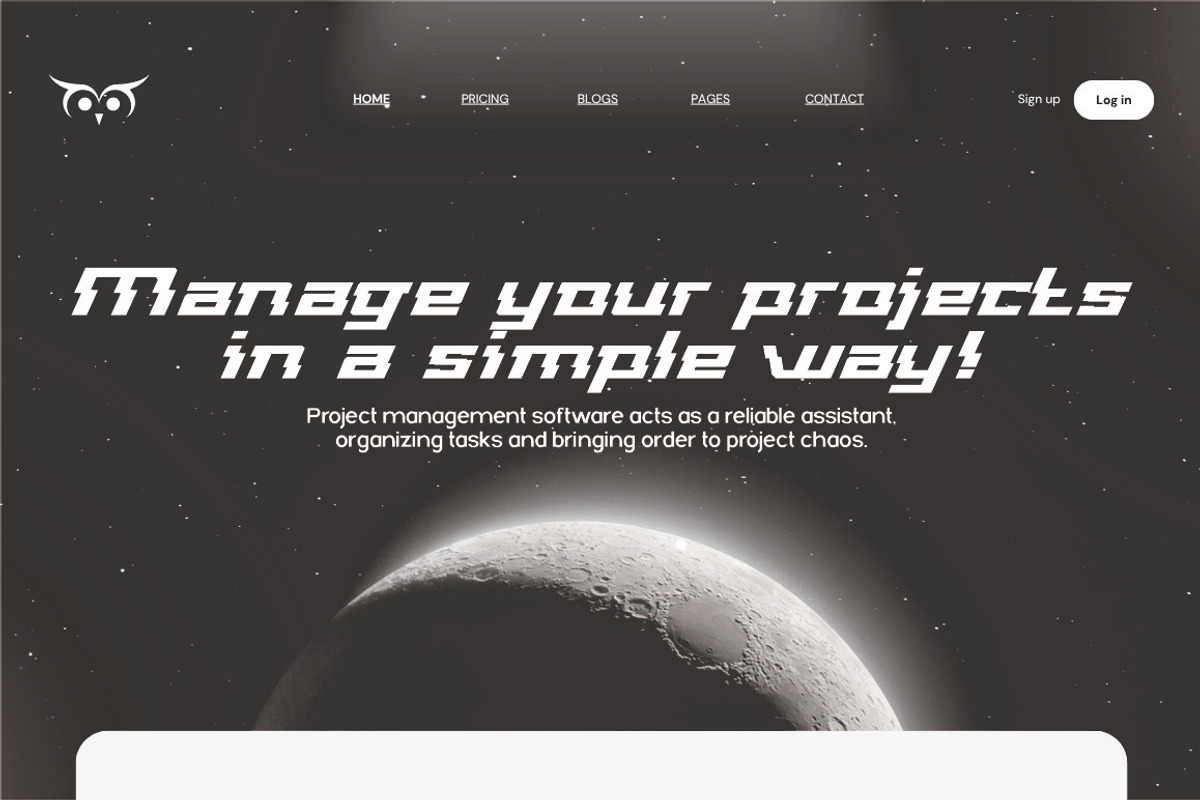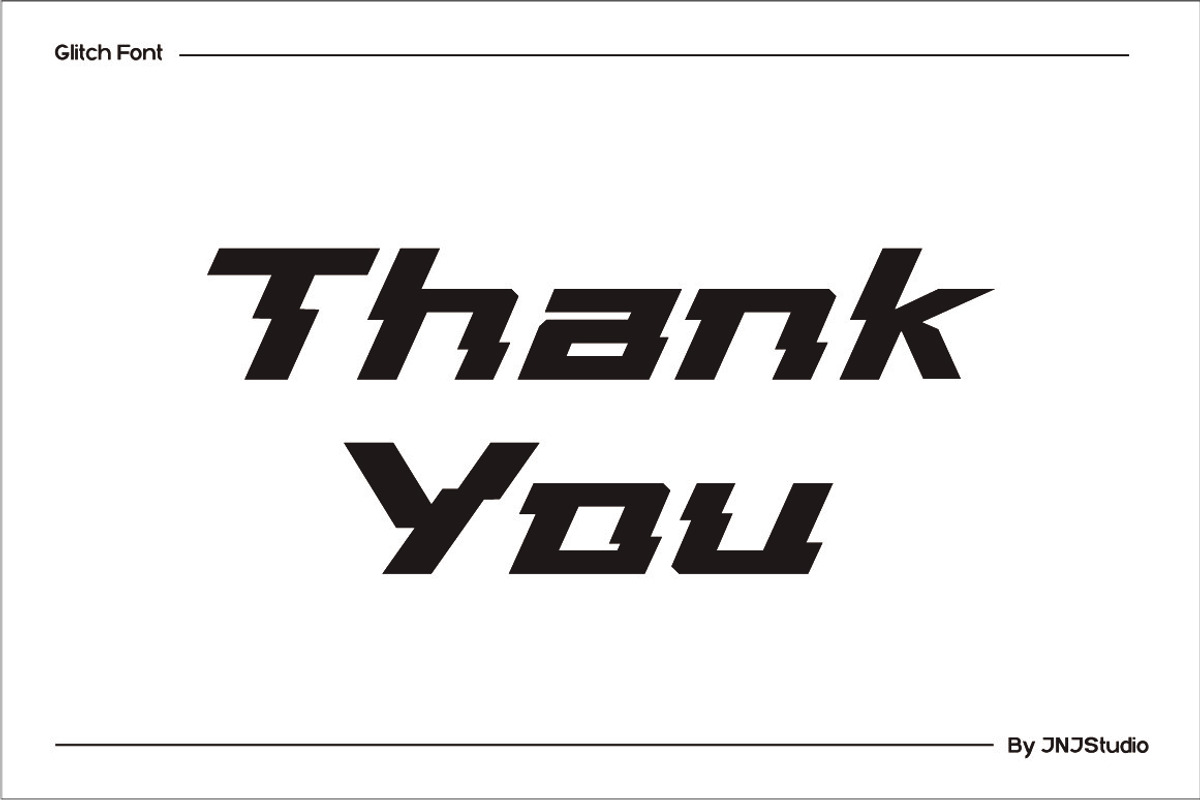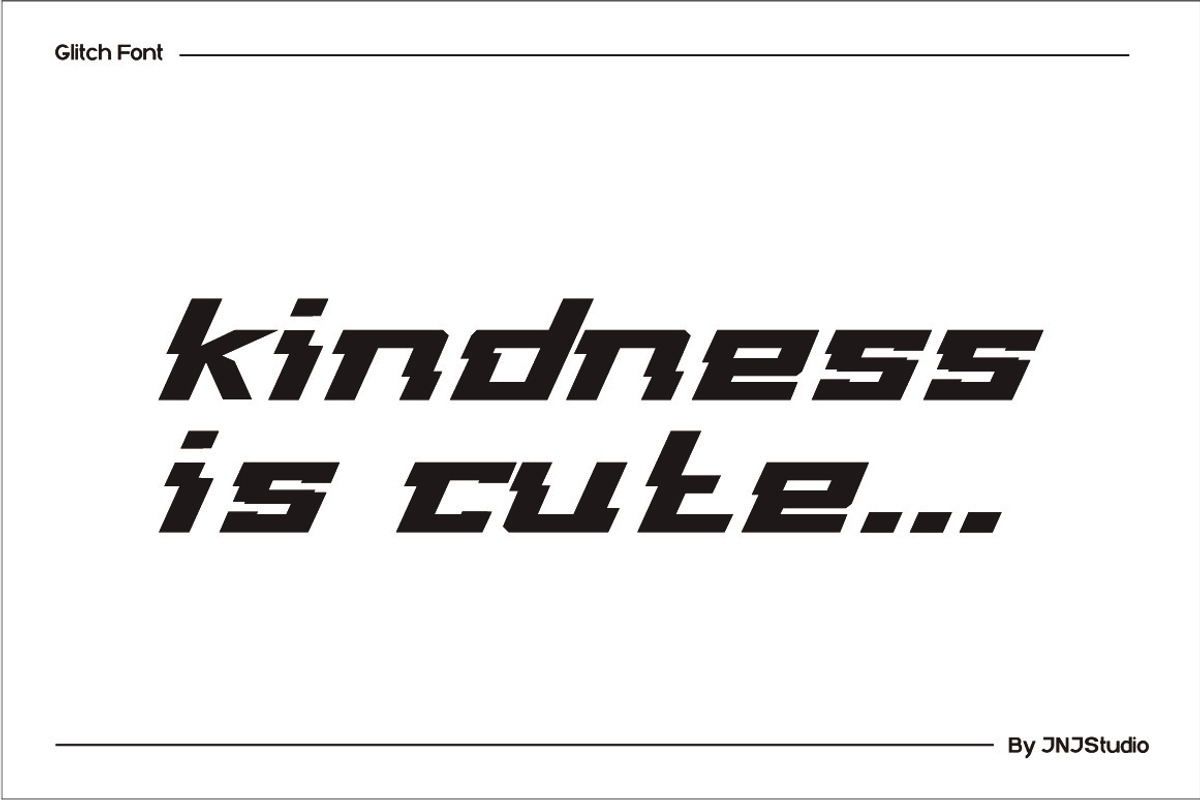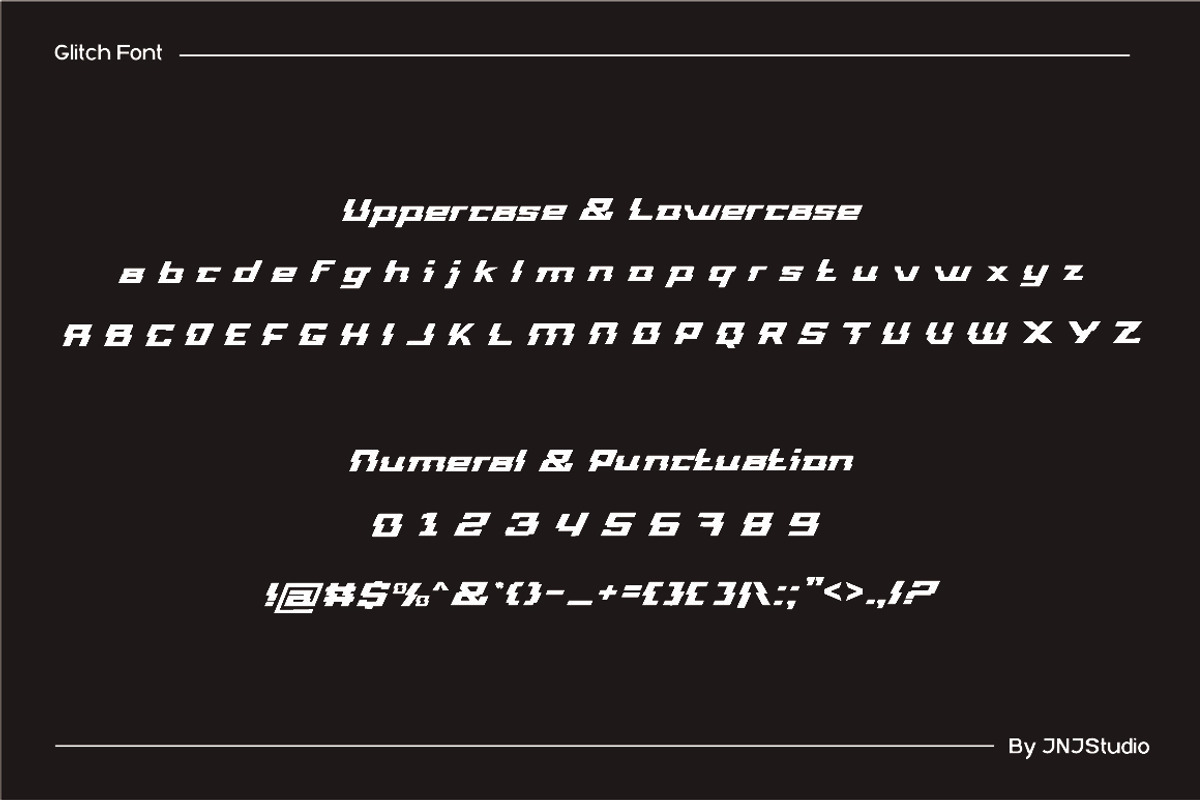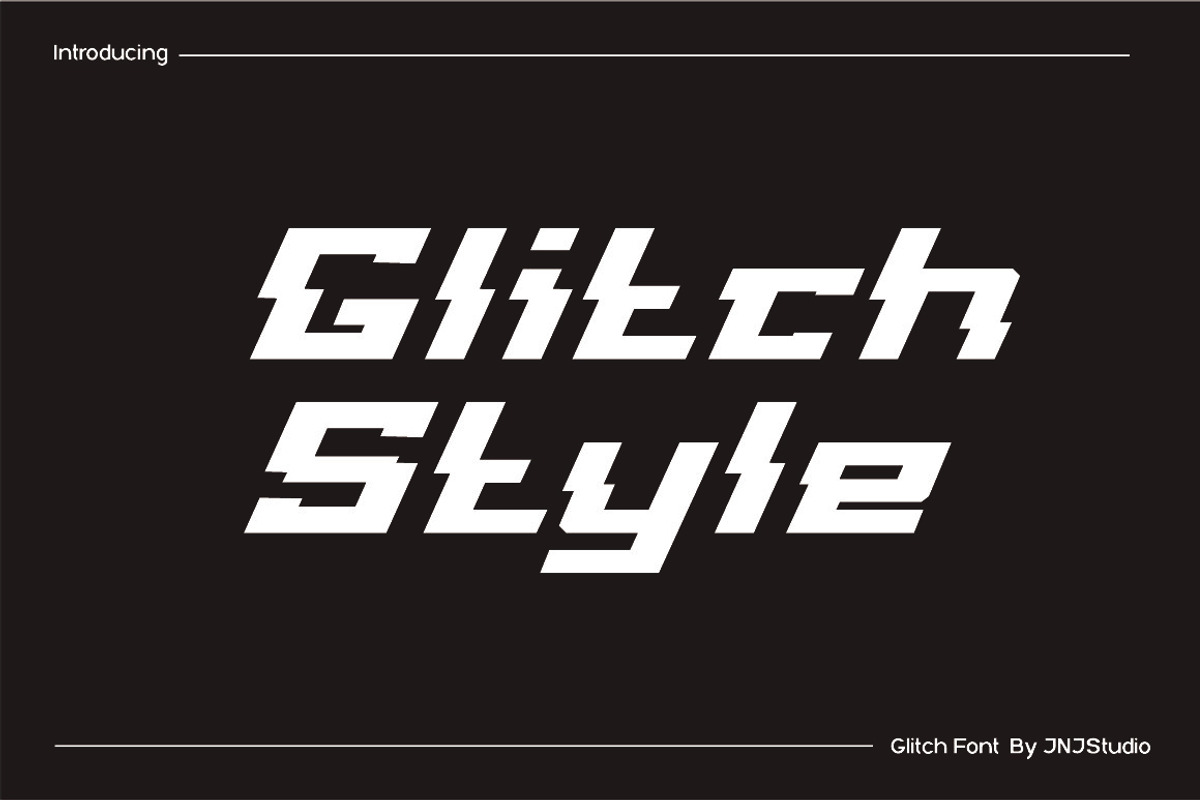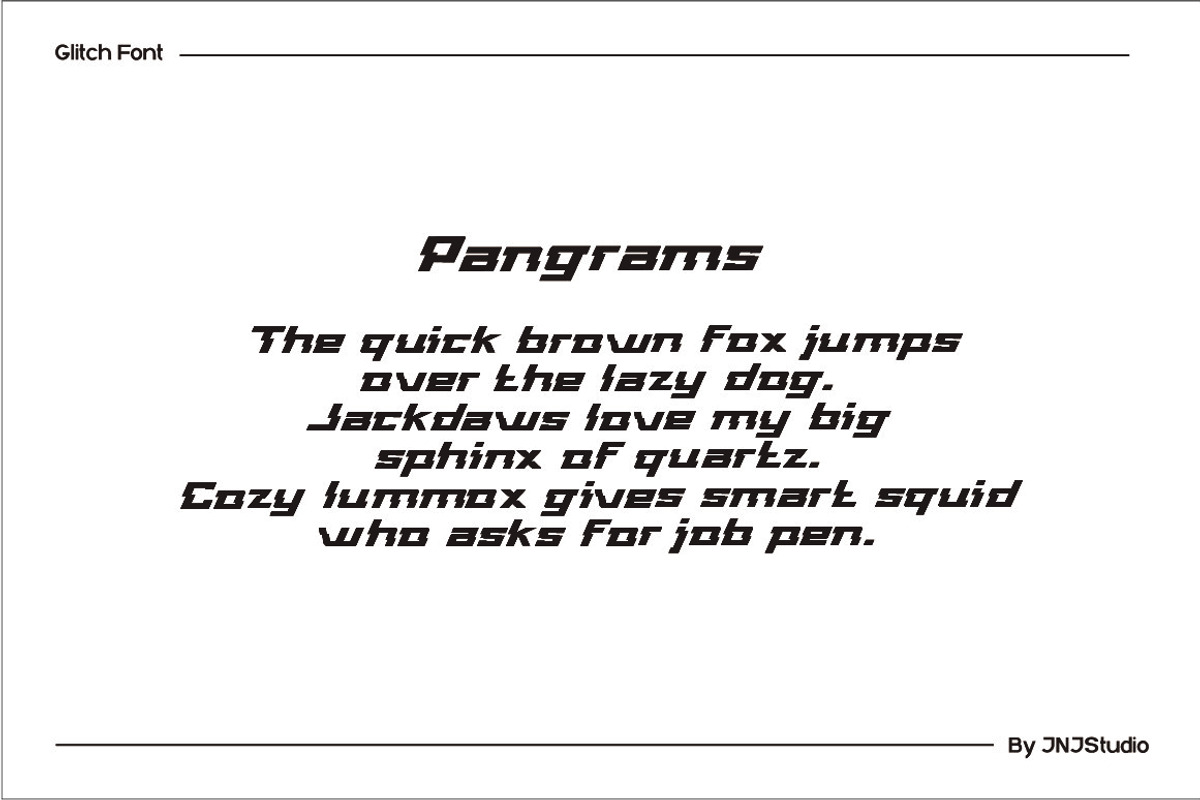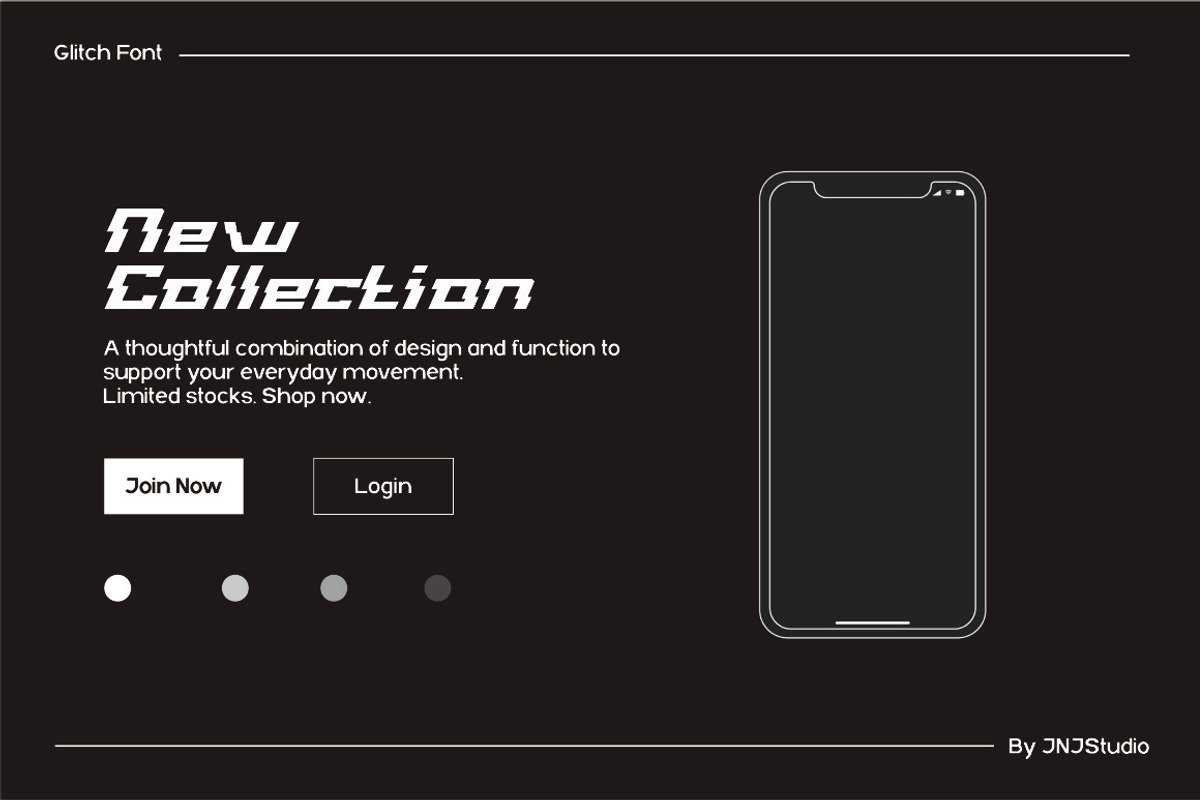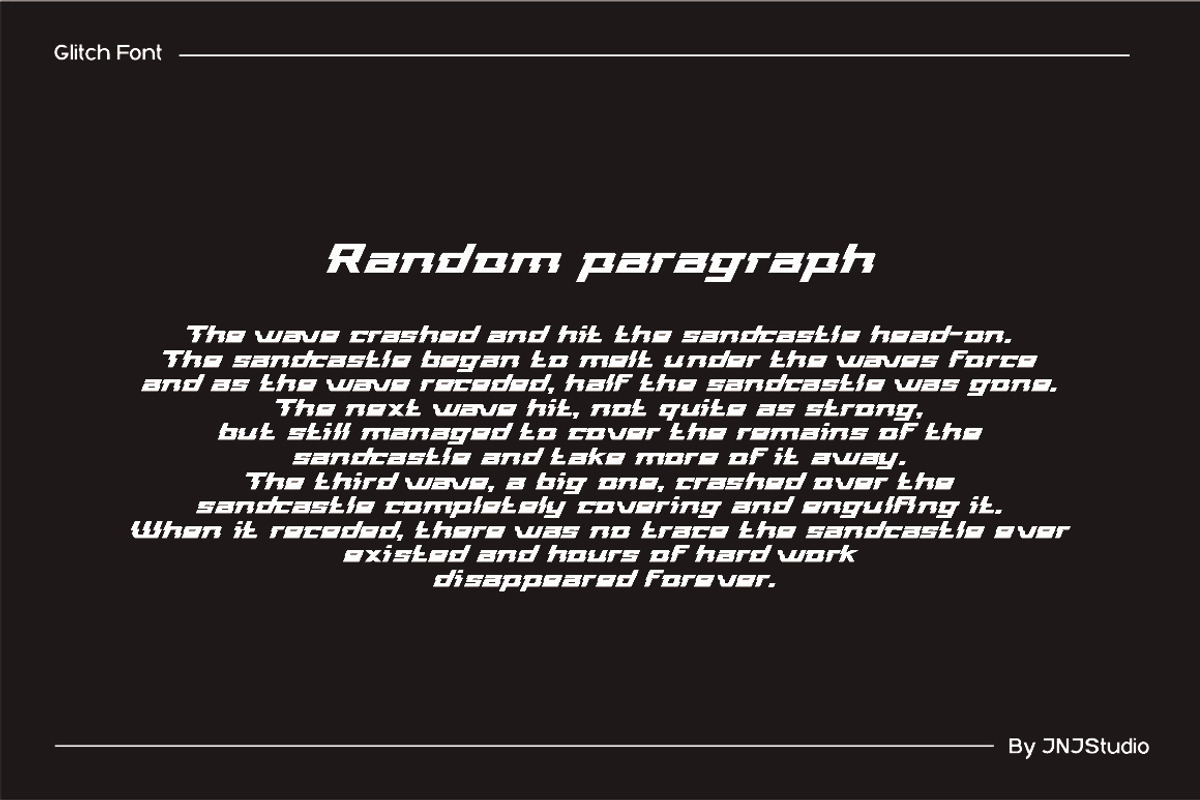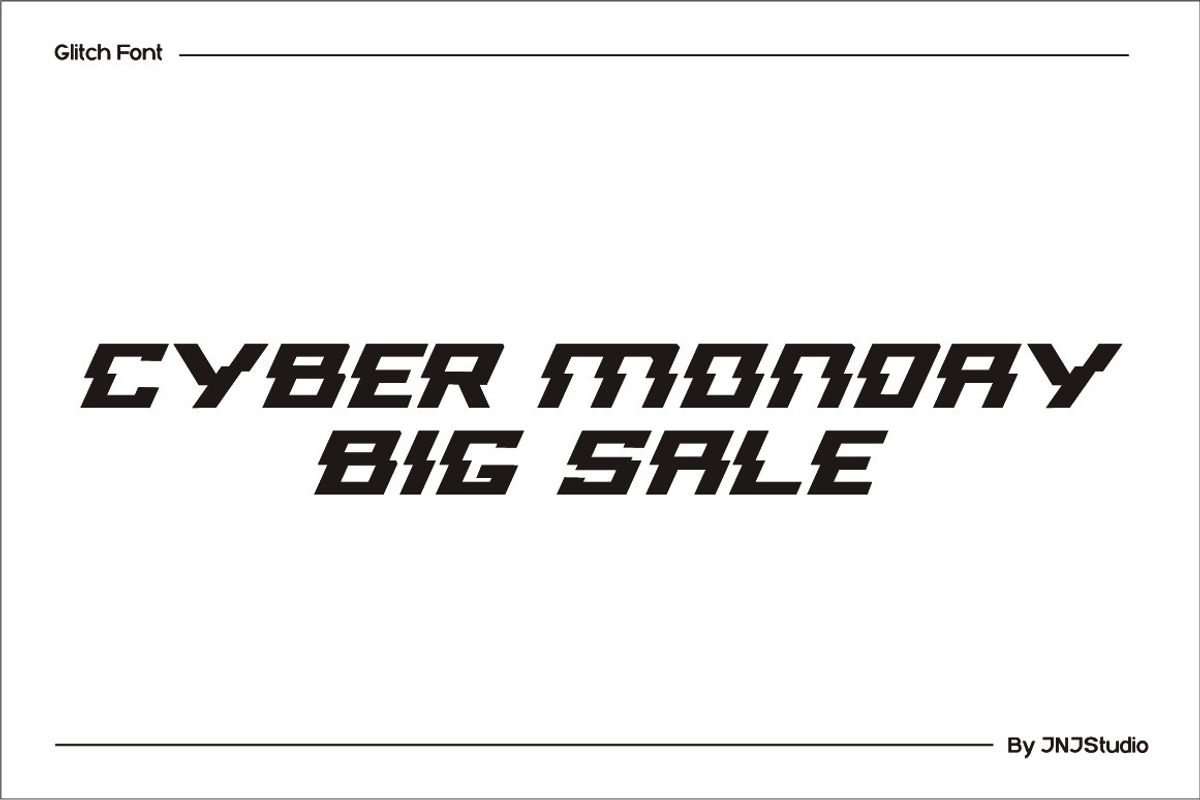
Glitch Style Font
Introducing "Glitch Style" is a dynamic and futuristic italic typeface inspired by digital distortion, signal interference, and cyberpunk aesthetics. With sharp slants, broken lines, and layered flicker effects, this font captures the essence of digital chaos and movement. Perfect for titles, posters, tech interfaces, and experimental branding, Glitch Style gives your text a sense of urgency and digital rebellion. Its italic slant adds speed and energy, making every letter feel alive—like it's breaking through a screen.
Ideal for projects that demand bold visual disruption and modern edge, Glitch Style blends tech-inspired design with expressive, deconstructed form.